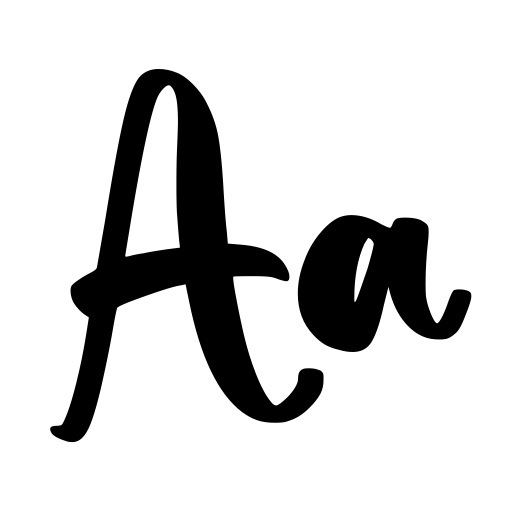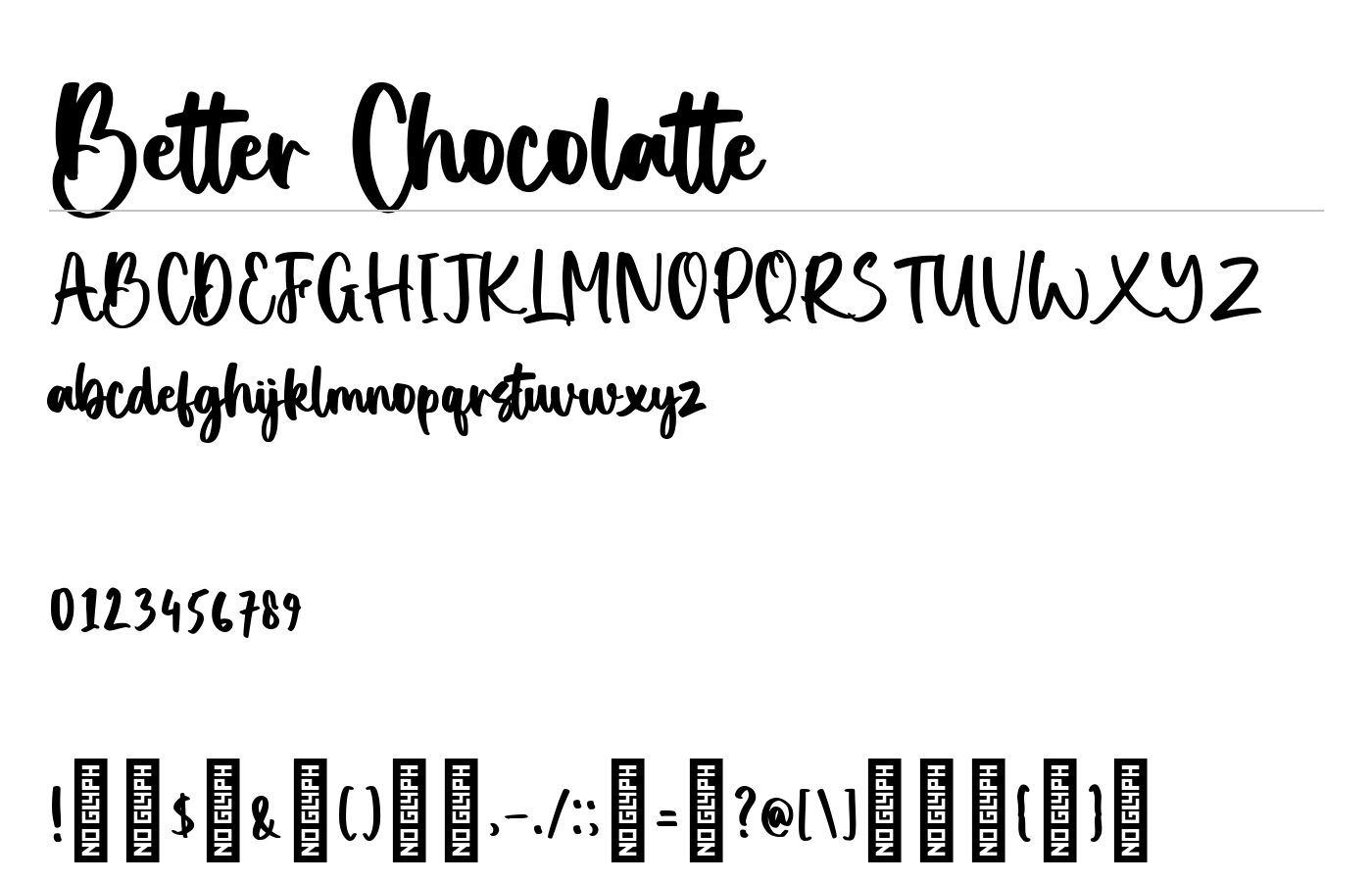
Better Chocolatte Font is a playful and casual script typeface with a lively, hand-drawn feel. Its bold strokes and slightly irregular shapes create a warm, friendly personality perfect for creative branding, packaging, and eye-catching headlines that want to convey approachability and charm. This font works well where a natural, handwritten touch is needed to add a personal, informal vibe.
Better Chocolatte Font
About Better Chocolatte Font
| Font family | Better Chocolatte Font |
| Designer | Hasna - Violatype |